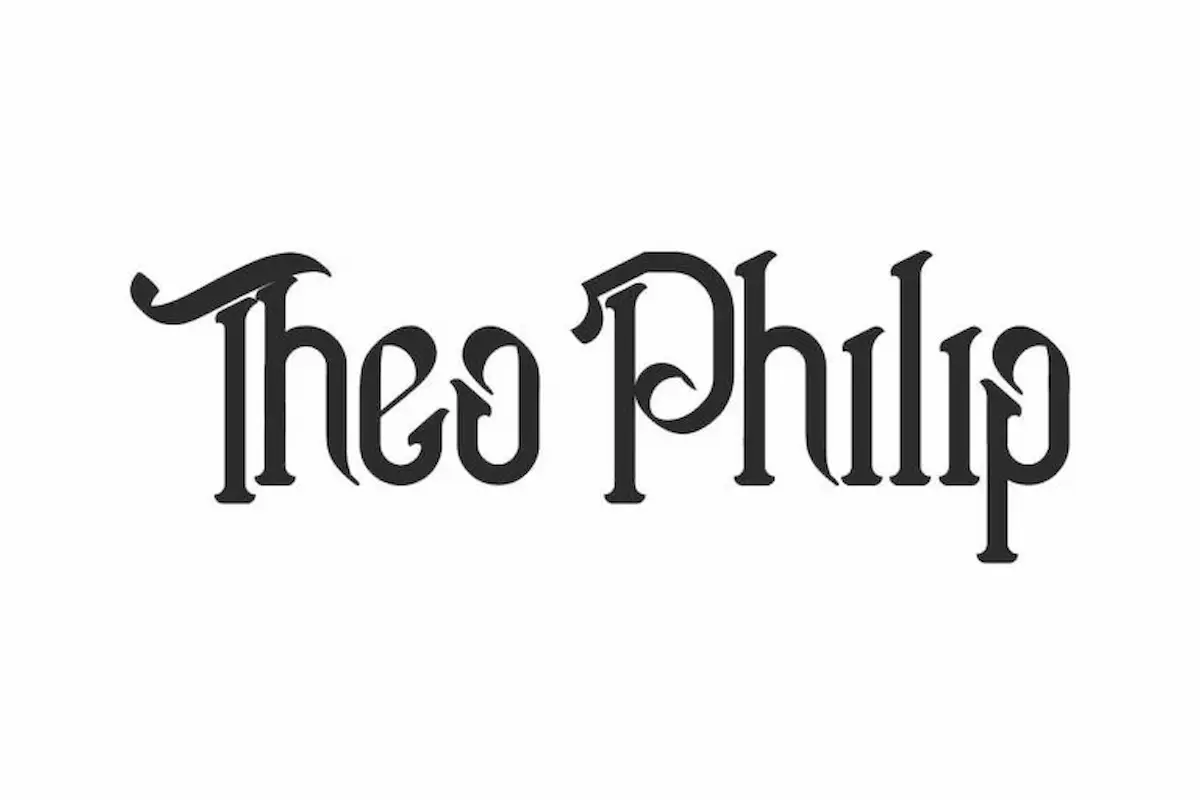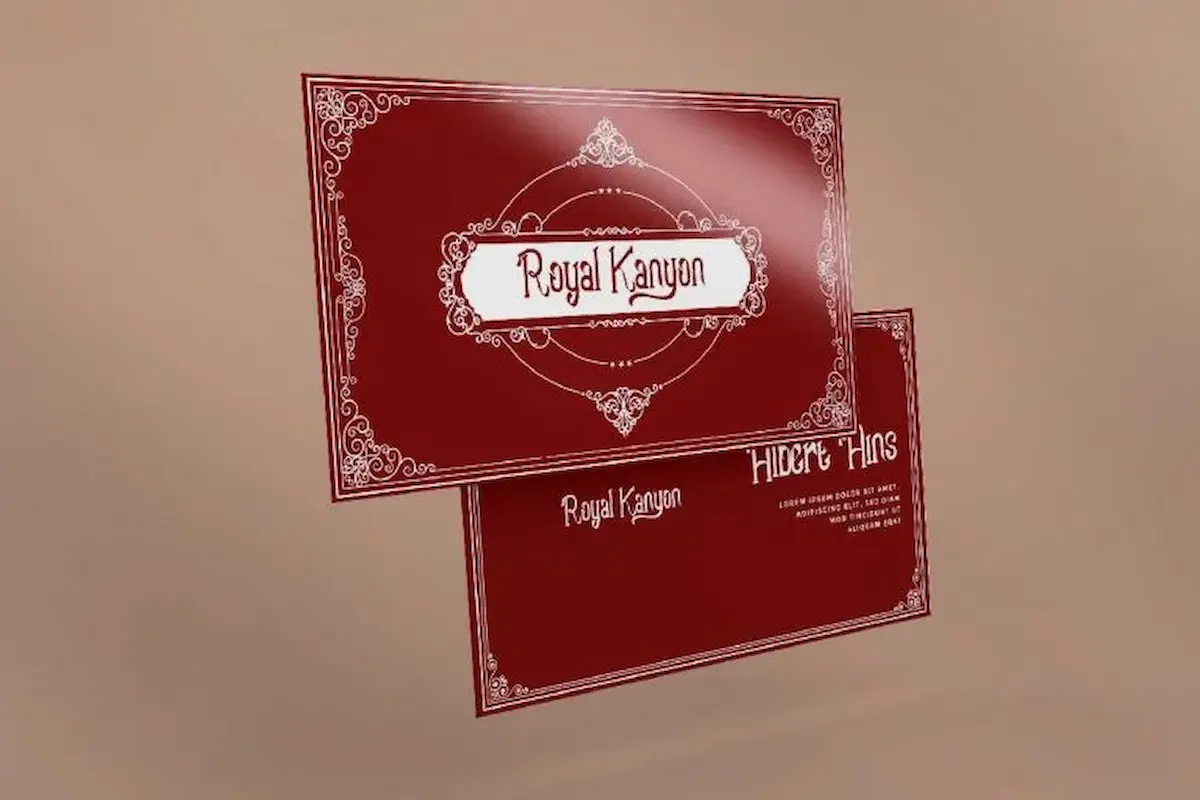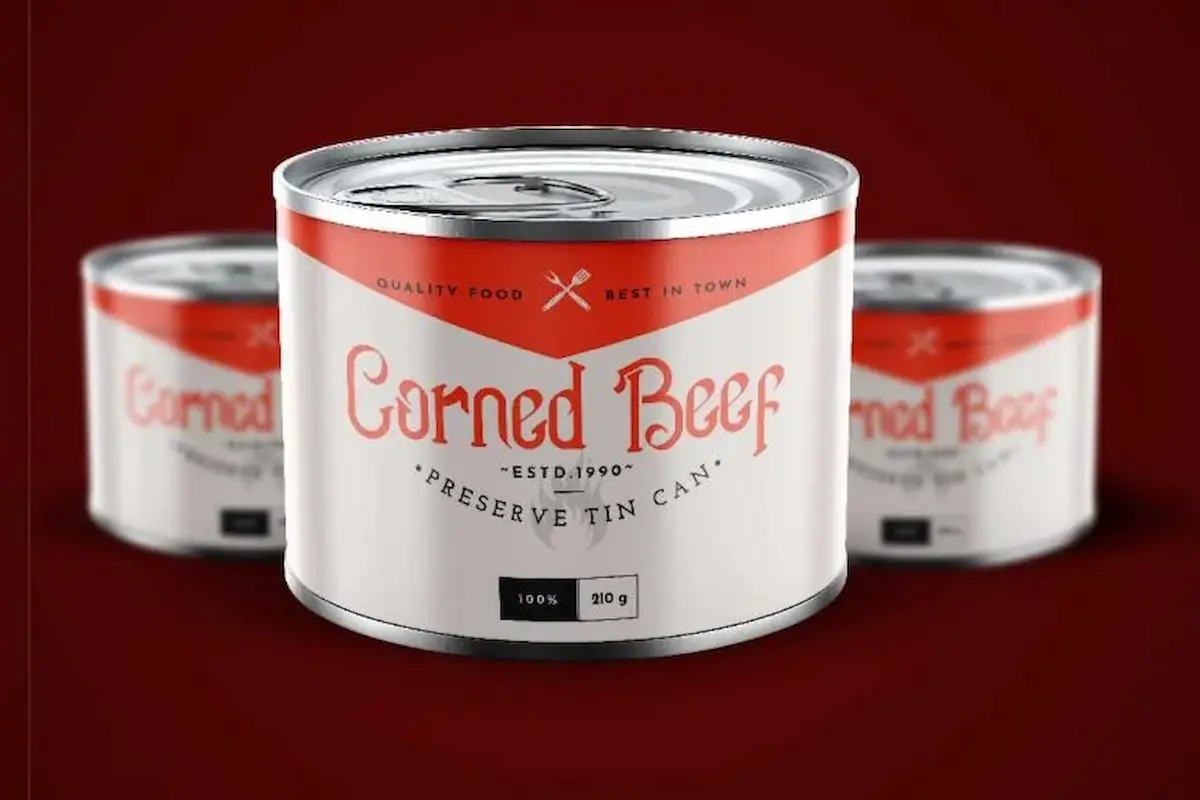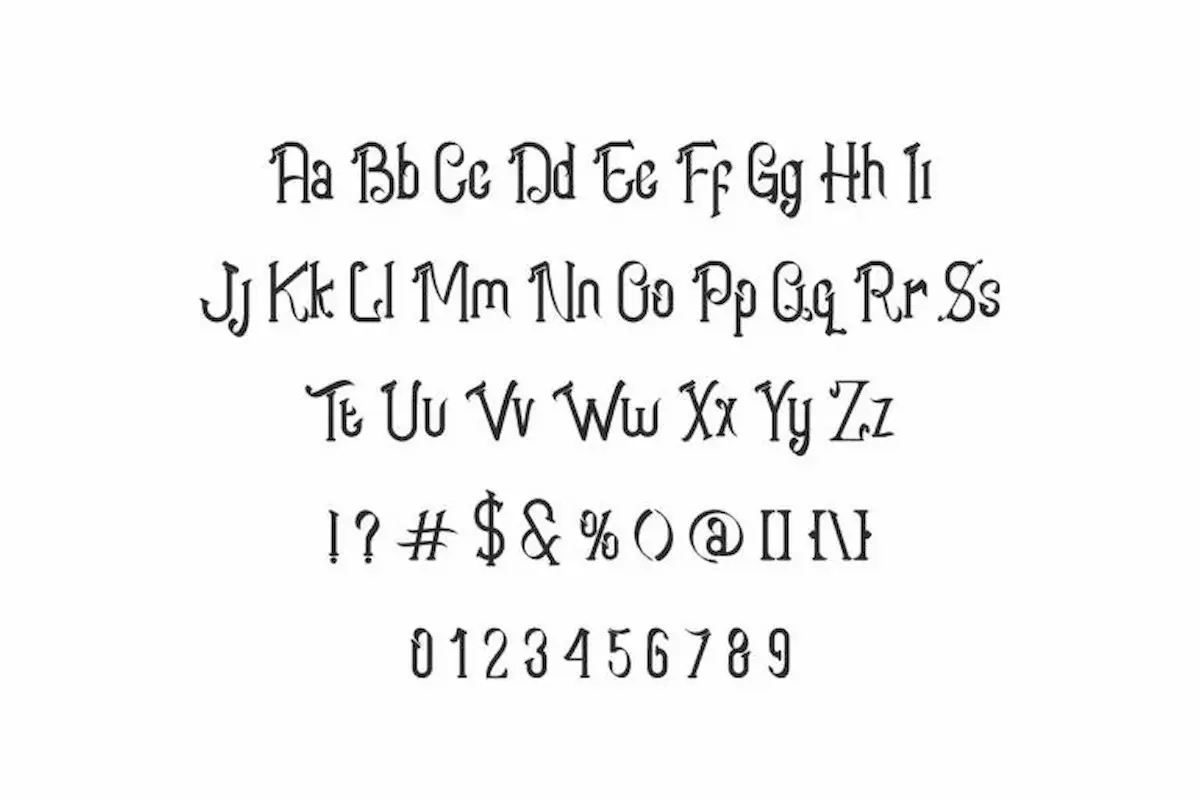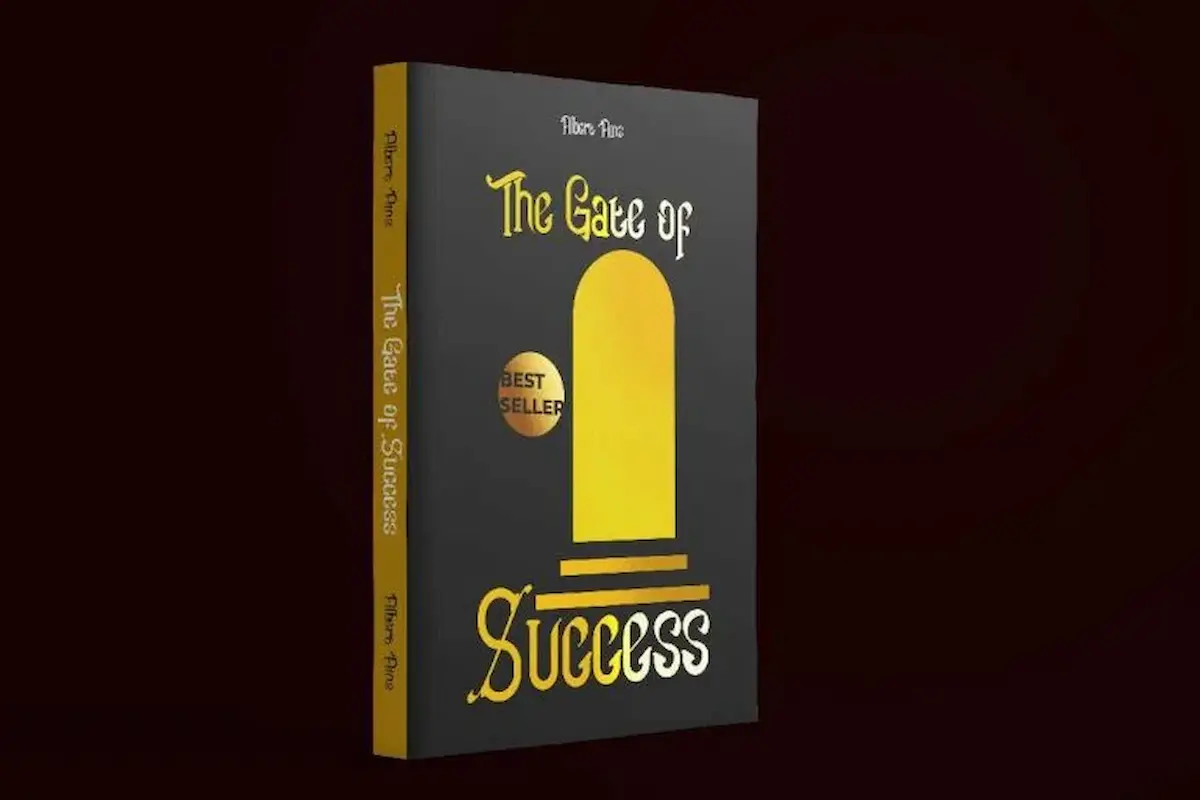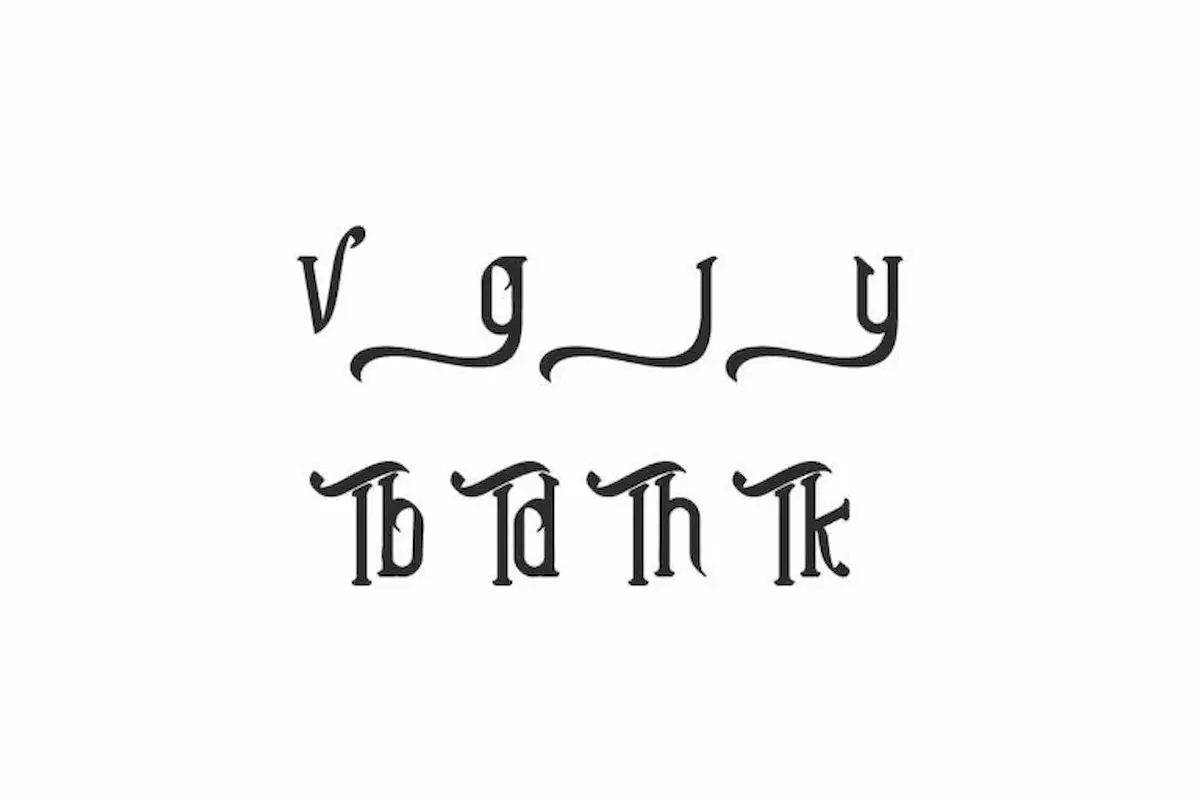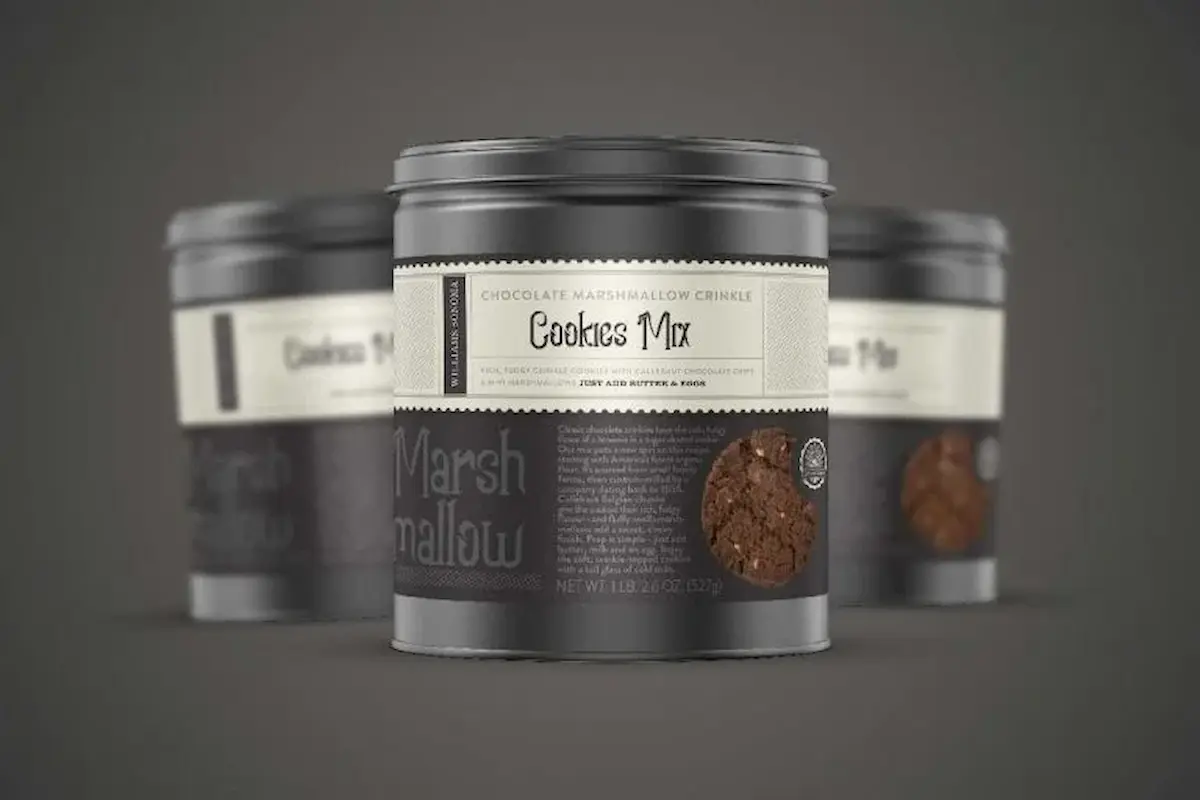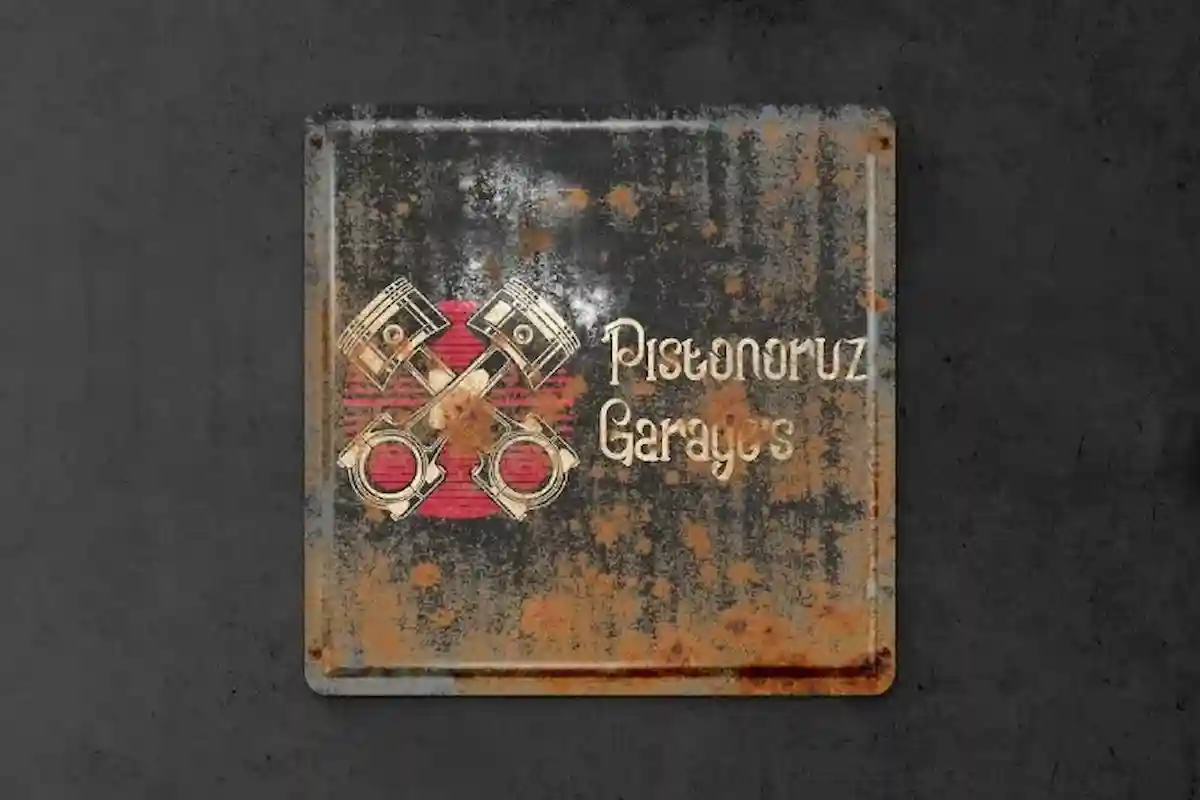
Theo Philip Font is a display serif font by NihStudio. The font has a victorian vintage style. It will great for café, restaurant, music, barber, automotive etc.
Theo Philip Font comes with OTF File, TTF File, Woff File and we’ll also include Read-me help file txt. The font was handcrafted by Widi and Sarah. Theo Philip Font will be great for any projects (require extended license) including : branding, logo, stationery, business card, signage, flyer, brochure etc. It will be great for many business industries : barber, salon, hair dresser, restaurant, café, music, singer, automotive, Victorian, classic, etc